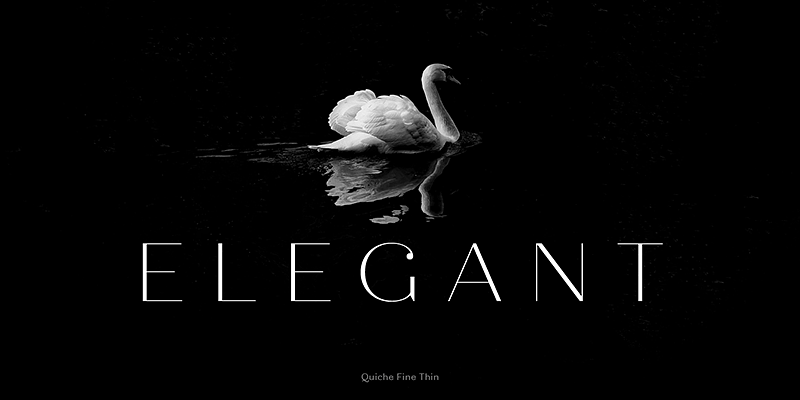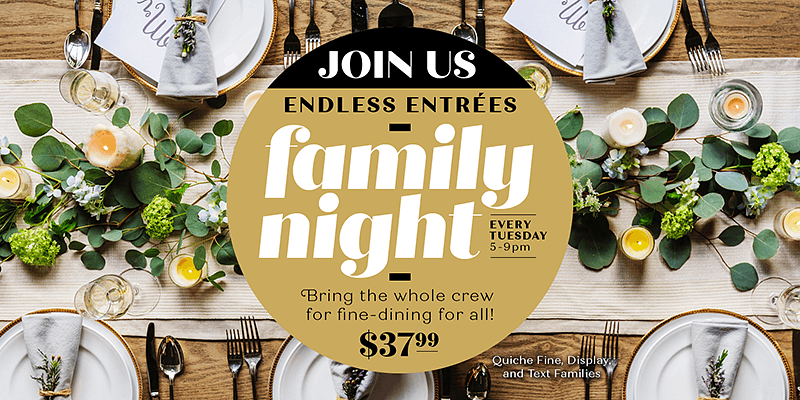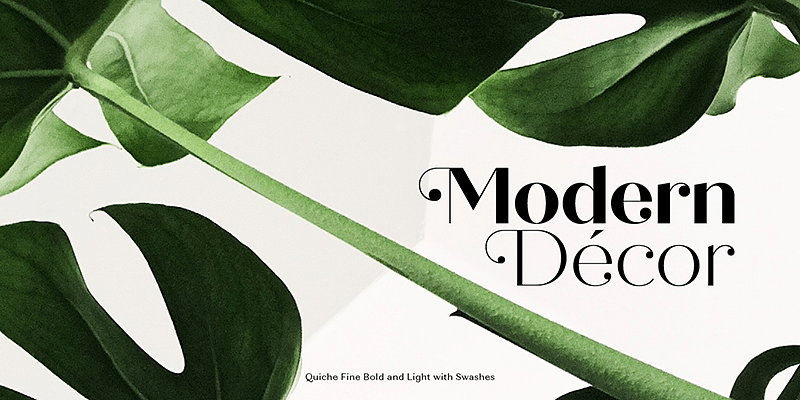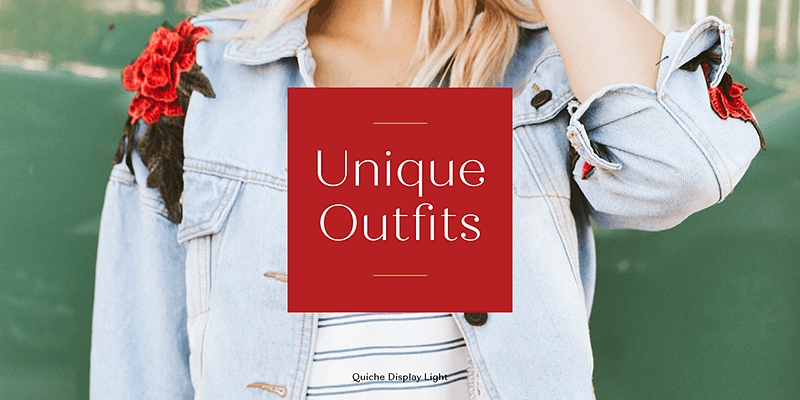
Quiche Display is a high-contrast, sans serif typeface featuring ball terminals and angled stems. Influenced by the serif didone genre, it removes the serifs for a unique and modern expression.
With an emphasis on typefaces designed to be useful and unique, Adam Ladd crafts fonts with a diverse appeal that ranges across modern and vintage aesthetics in sans serif, serif, and script styles. His experience as art director at two of the most revered design publications — HOW and PRINT magazines — informs his work as a type designer. Individuals and large companies in many industries have licensed his fonts, including Disney, Whole Foods, Blizzard Entertainment, and Penguin Random House.